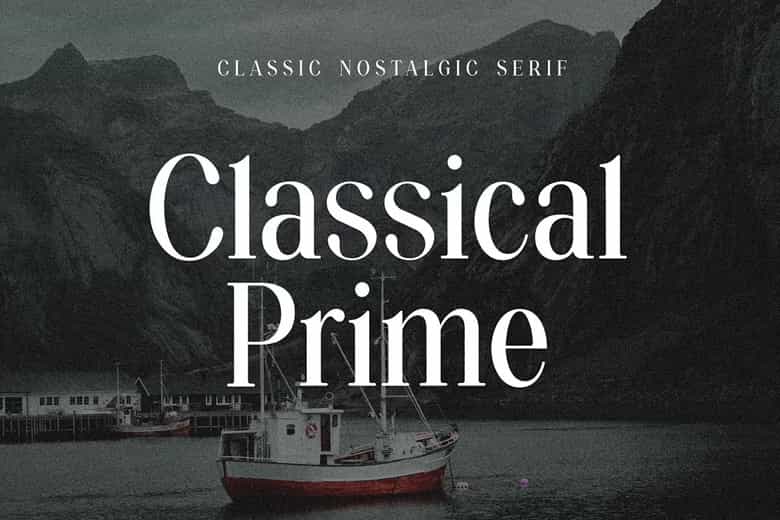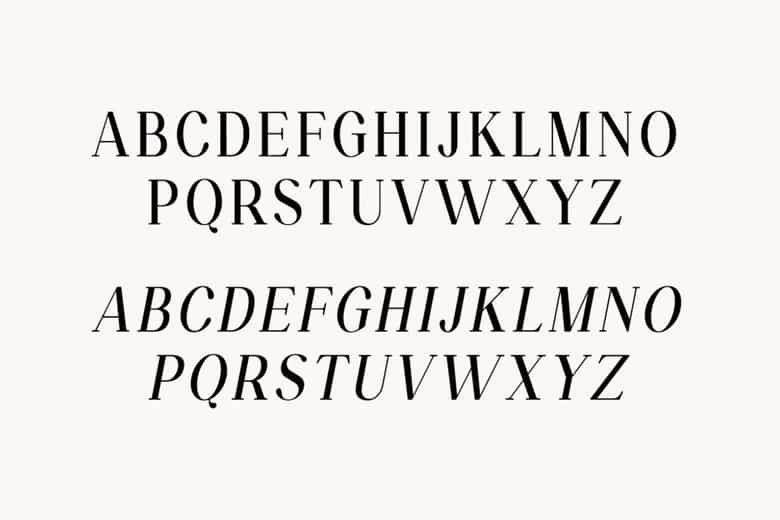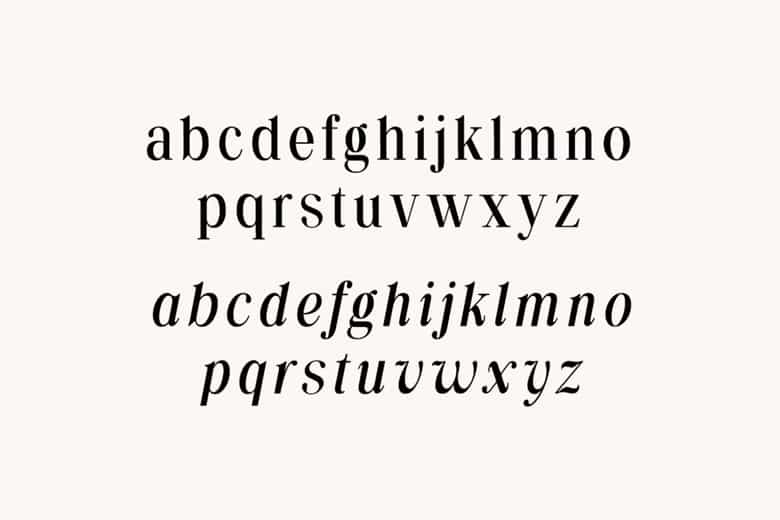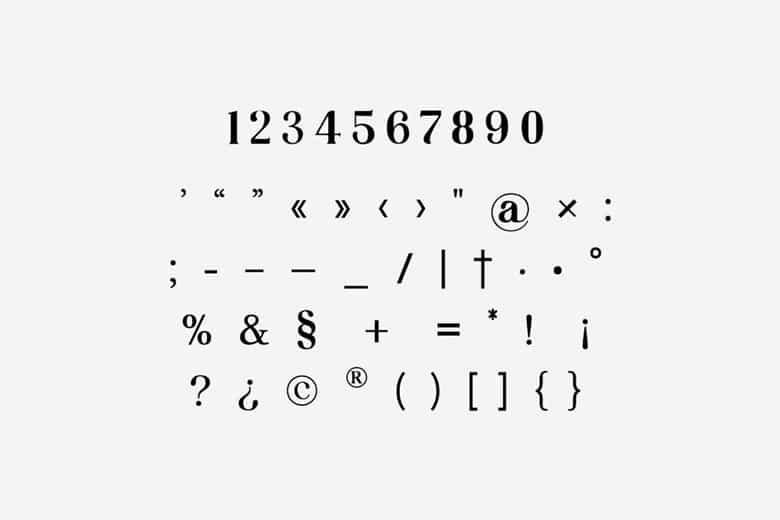
Classical Prime is a classic nostalgic and stylish serif font. This font will be suitable for any project including stationery, logo, wedding, typography word, magazine, book cover, web element, branding and etc.